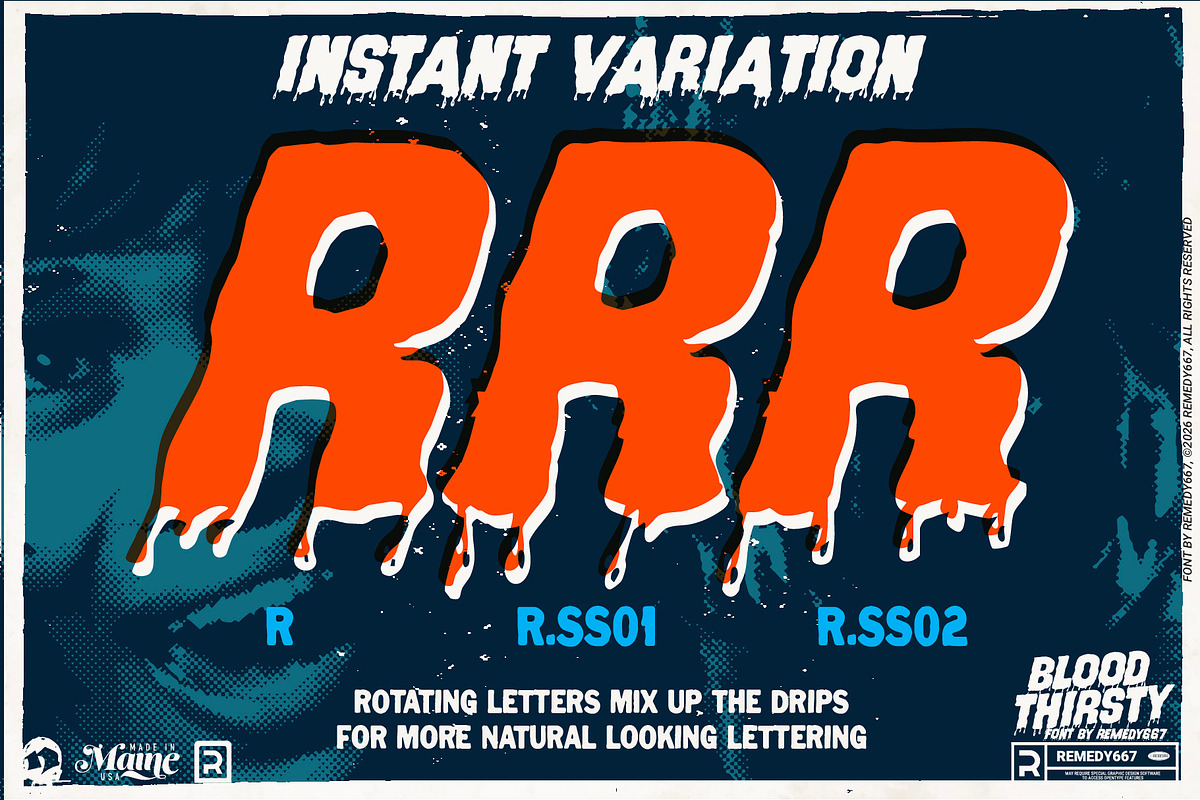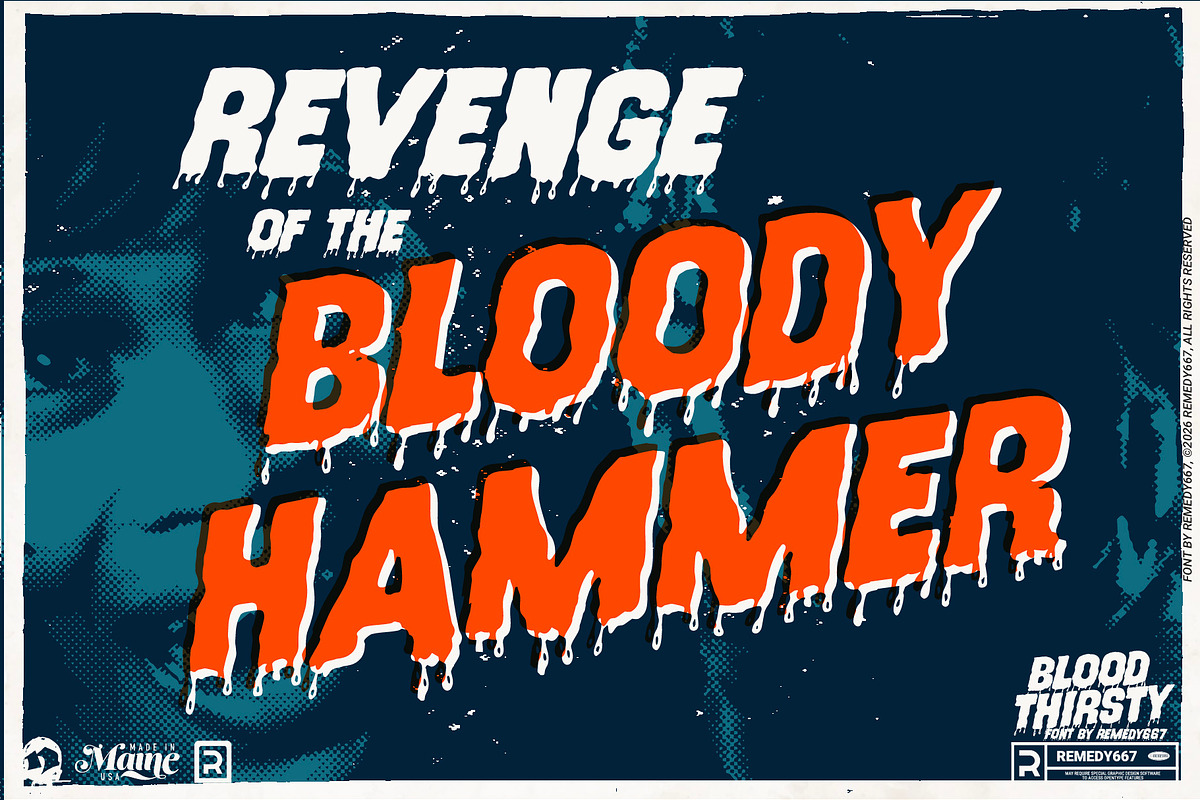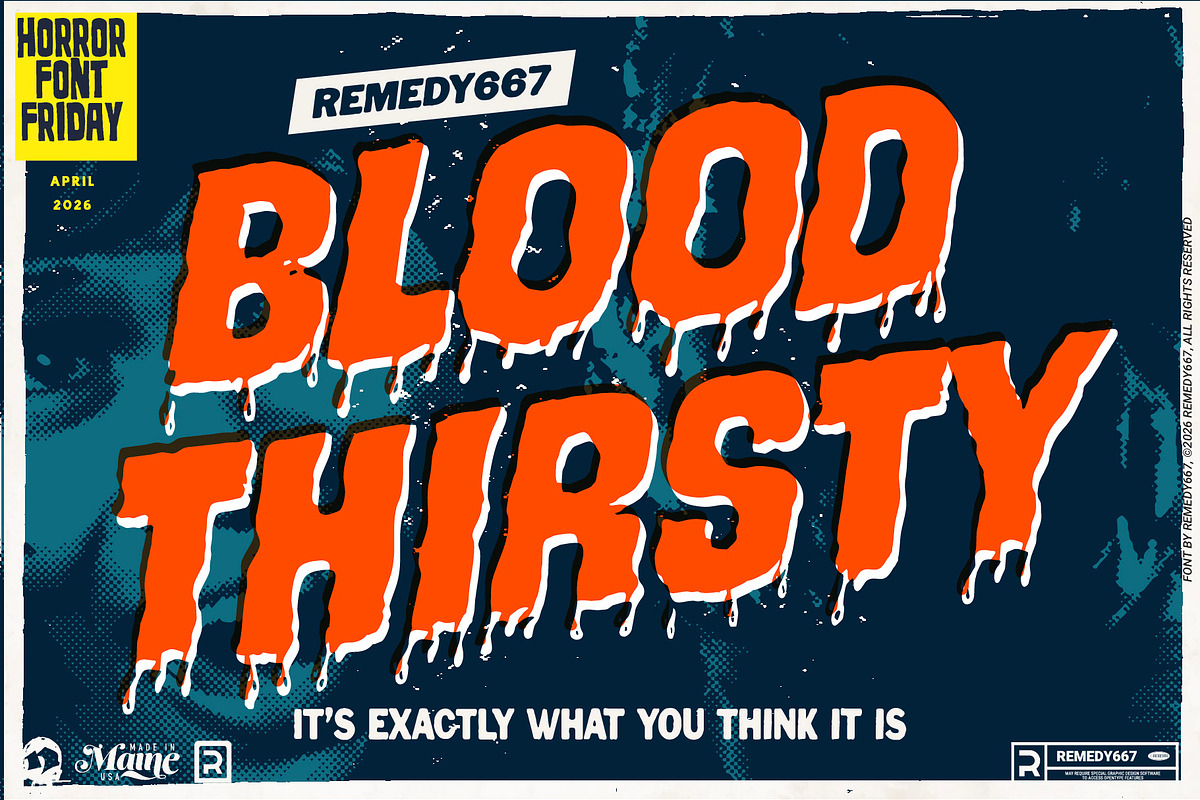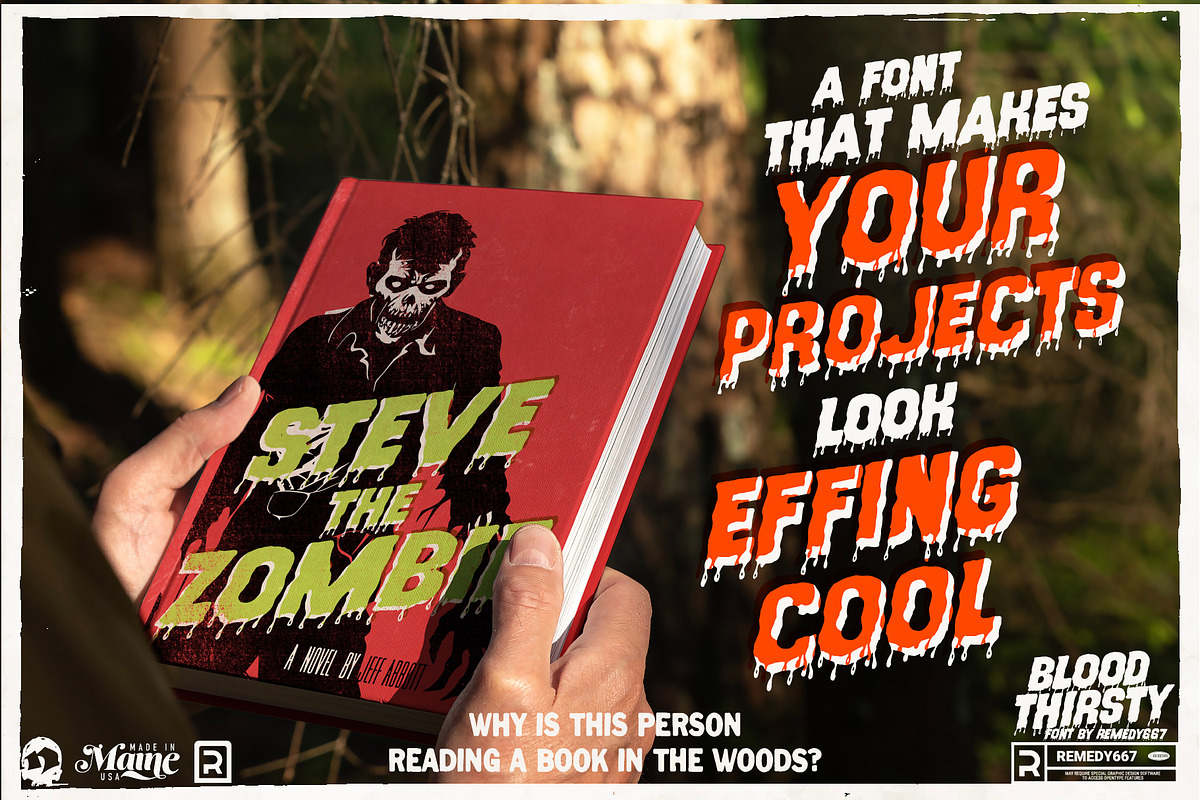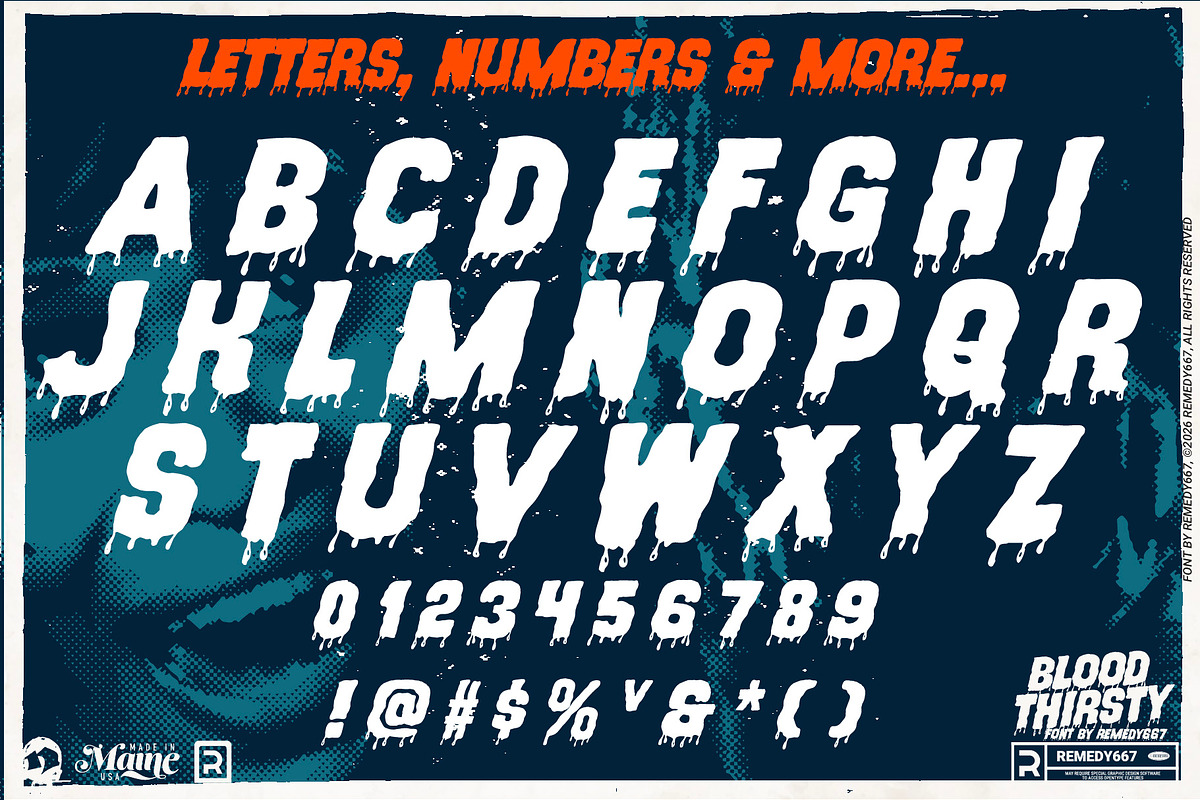
Blood Thirsty
Blood Thirsty is here to quench your craving for bold, blood drenched typography! Torn straight from the savage lettering in the press book for the 1971 film, Blood Thirst. Blood Thirsty drips with a vintage menace and grabs attention like classic drive-in advertisement.
Thick, hand-drawn strokes and long streaming drippy flair, Blood Thirsty is built for titles that demand attention. Each letter writhes with subtle variation, thanks to its shifting alternates, giving your words that freshly-splattered look. Blood Thirsty doesn’t just speak… it bleeds!
- Bold, drippy hand-drawn lettering for high-impact titles
- Contextual alternates for natural, rotating letter variation
- Multilingual support for worldwide horror design